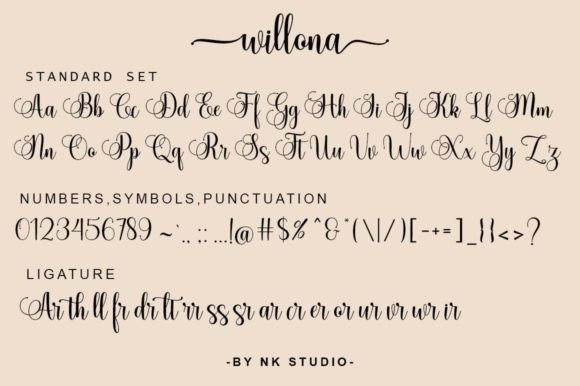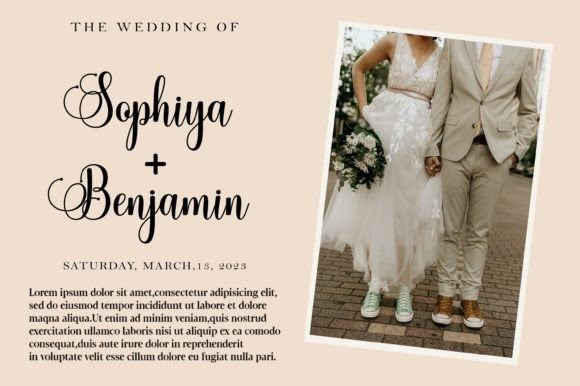
Willona Font
Willona Calligraphy Font is a subtle and elegant script font. This font has a lovely touch of character, perfect for a variety of designs. The Willona features varied baselines, unique smooth lines, and stunning alternatives. Add to your most creative ideas and see how to make art!